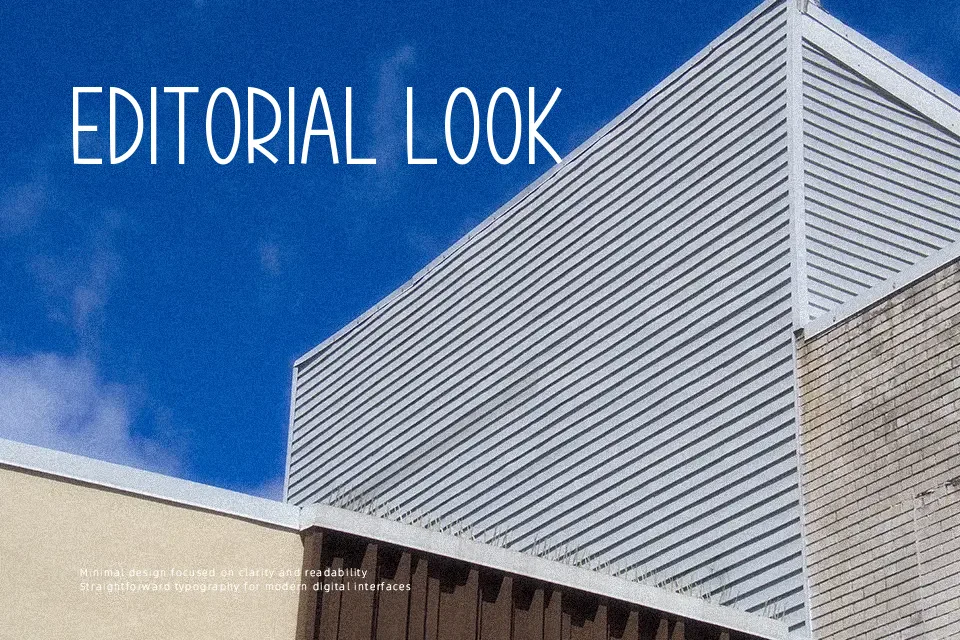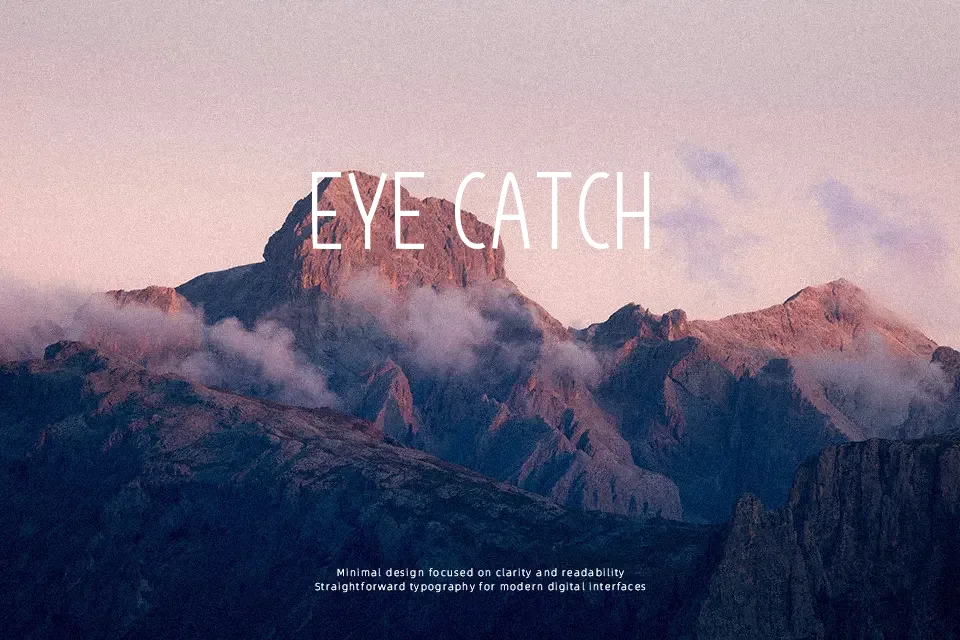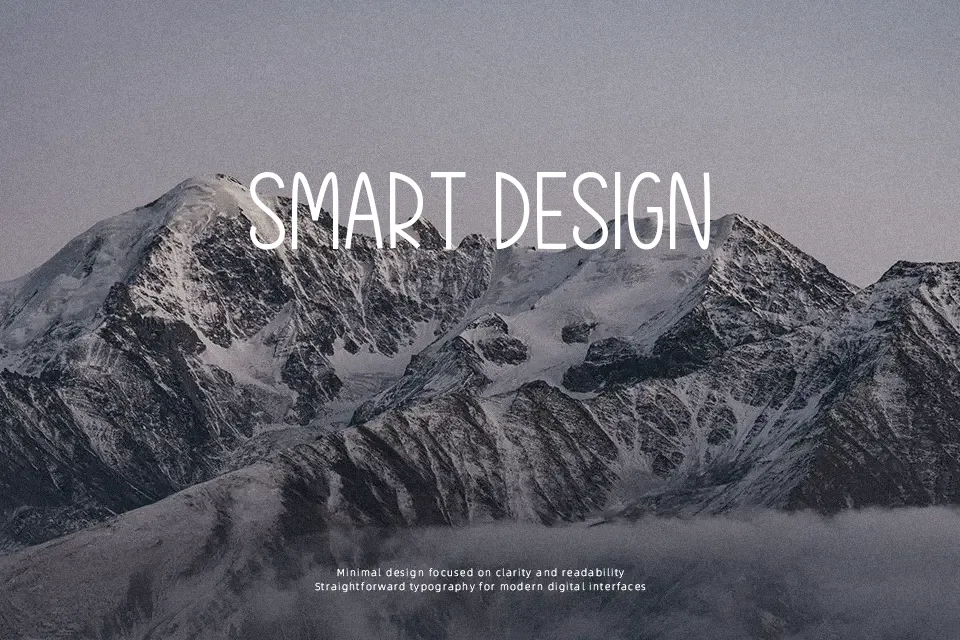
Thanks Teacher Font
Thanks Teacher Font features a clean, rounded display construction built with uniform monoline strokes and softened terminals. The uppercase letterforms exhibit balanced geometric proportions, while open interior counters prevent tighter clusters from clogging in short titling arrangements. Consistent character widths establish an even visual rhythm, though the simplified stroke architecture loses definition when set in dense body text. Decorative uniformity makes the typeface dependable for bright packaging and creative social assets, yet extended reading comfort diminishes quickly across multi-line paragraphs.
Best For: classroom bulletin boards, children’s book titles, holiday greeting cards, playful apparel graphics
Not Ideal For: long paragraph text, technical manuals, financial reports, dense editorial layouts
Perfect for headline, holiday, and kids, with a clean and display style.